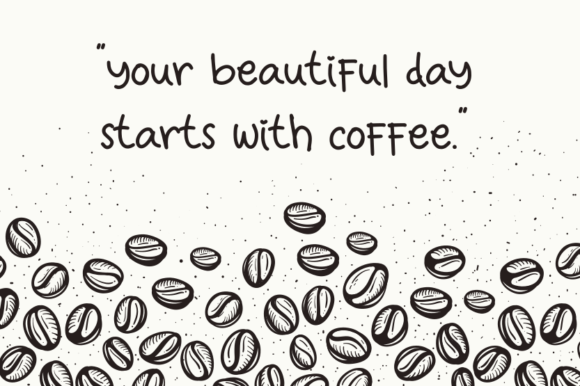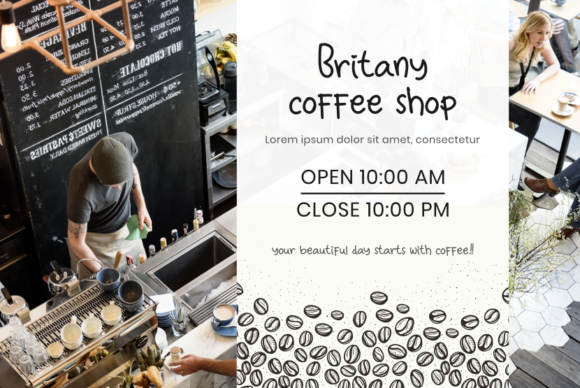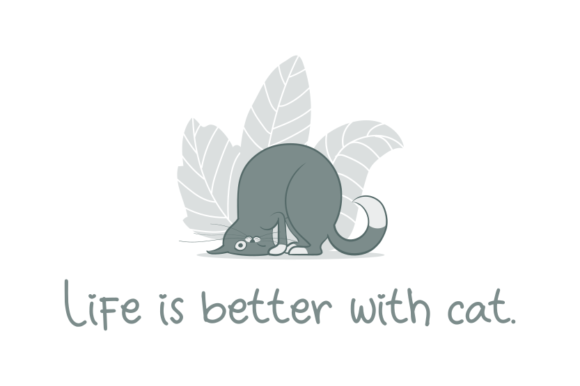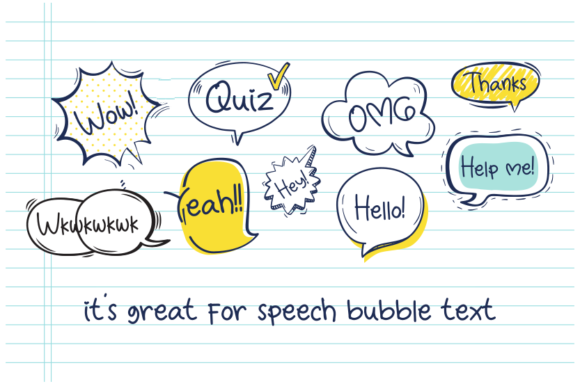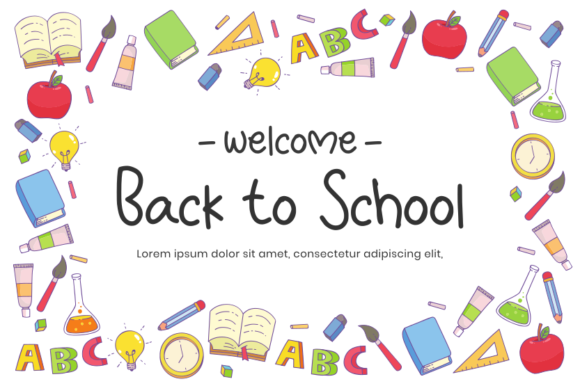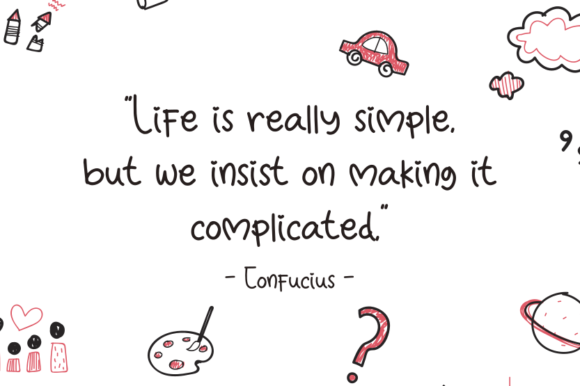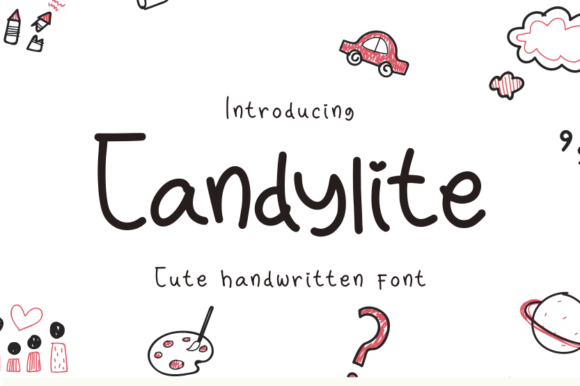
Candylite Font: Add a Touch of Whimsy to Your Designs
In the world of typography, fonts play a crucial role in conveying the tone and personality of a design. If you’re looking for a font that embodies fun, authenticity, and a dash of quirkiness, look no further than Candylite. This adorable handwritten font is perfect for designers, crafters, and anyone looking to add a touch of whimsy to their projects.
What is Candylite Font?
Candylite is a cute and quirky handwritten font that is sure to capture the hearts of designers and crafters alike. With its playful and carefree vibe, this font is incredibly versatile and can be used for a wide range of designs, from kids’ projects and school assignments to branding, packaging, and more.
Key Features of Candylite Font
• Cute and Quirky: Candylite’s unique and playful design makes it perfect for projects that require a touch of whimsy and fun.
• Handwritten: This font boasts a beautiful, handwritten aesthetic that adds a personal touch to any design.
• Versatile: Candylite is incredibly versatile and can be used for a wide range of designs, from kids’ projects to branding and packaging.
• Easy to Read: Despite its playful design, Candylite is easy to read, making it perfect for body text and headings.
Uses for Candylite Font
Candylite’s versatility makes it perfect for a wide range of designs, including:
• Kids’ Projects: Add a touch of fun and whimsy to kids’ projects, such as posters, flyers, and worksheets.
• School Assignments: Use Candylite to create visually appealing school assignments, such as reports, presentations, and projects.
• Branding and Packaging: Add a touch of personality to your brand with Candylite, perfect for packaging, labels, and marketing materials.
• Social Media Graphics: Use Candylite to create engaging social media graphics, such as quotes, memes, and promotional graphics.
Tips for Using Candylite Font
Here are a few tips for getting the most out of Candylite:
• Experiment with Colors: Candylite looks great in a variety of colors, so don’t be afraid to experiment and find the perfect hue for your design.
• Mix and Match: Combine Candylite with other fonts to create a unique and visually appealing design.
• Play with Size: Candylite looks great in a range of sizes, from small body text to large headings.
Candylite is a unique and versatile font that is perfect for designers, crafters, and anyone looking to add a touch of whimsy to their projects. With its cute and quirky design, handwritten aesthetic, and ease of use, Candylite is sure to become a favorite in your font collection. So why not give Candylite a try and brighten up your designs with a touch of fun and authenticity?
• What type of font is Candylite? Candylite is a handwritten font with a cute and quirky design.